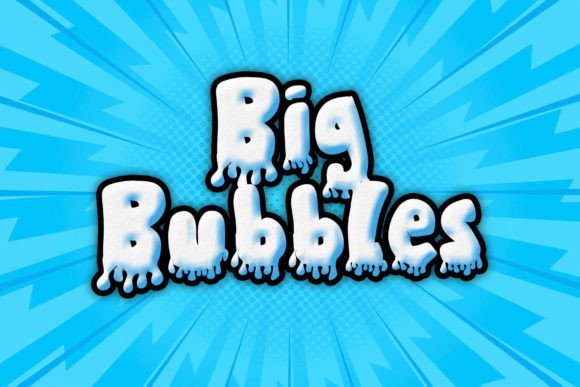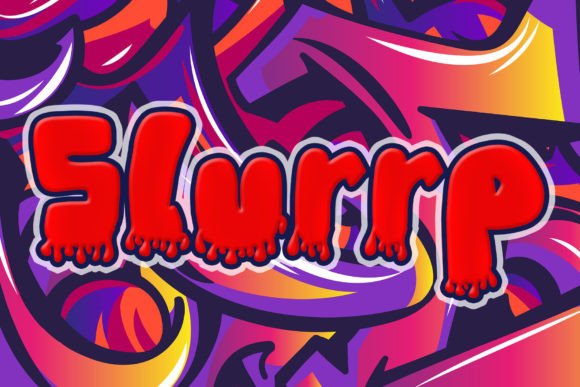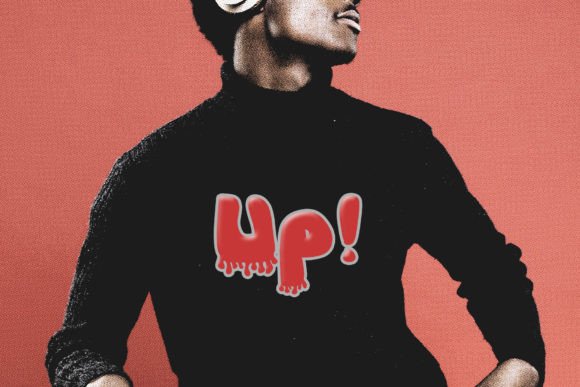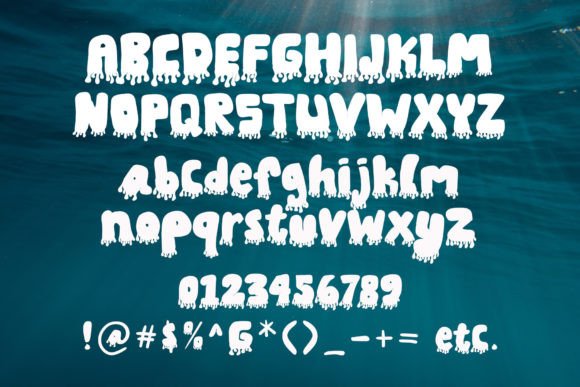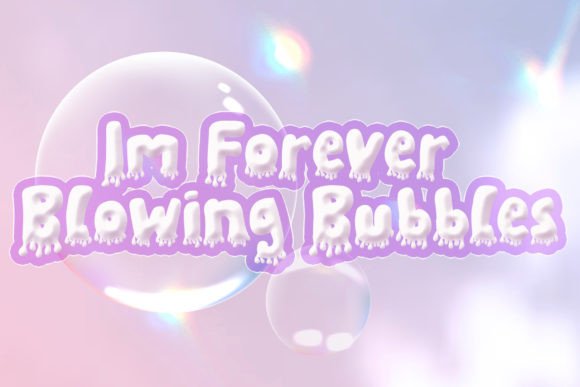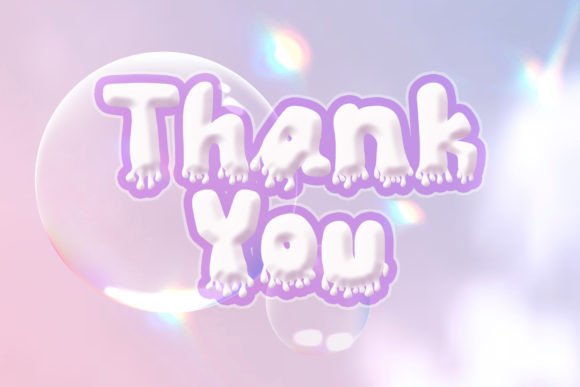
Introducing Curly Puth Font: The Playful and Cute Companion for Designers and Crafters
Are you on the hunt for a font that exudes playfulness and cuteness? Look no further than Curly Puth Font! This delightful font is perfect for designers, crafters, and anyone looking to add a touch of whimsy to their projects. In this article, we’ll dive into the world of Curly Puth Font, exploring its features, uses, and benefits. Whether you’re a seasoned designer or a crafting enthusiast, you’ll discover why Curly Puth Font is about to become your new favorite go-to font.
The Playful and Cute Personality of Curly Puth Font
Curly Puth Font is a handcrafted, digital font that boasts a playful and cute personality. Its unique, curly design makes it perfect for projects that require a touch of fun and friendliness. The font’s rounded edges and smooth curves create a sense of approachability, making it ideal for designs that need to appeal to a younger audience. Whether you’re creating materials for children or simply want to add some whimsy to your designs, Curly Puth Font is the perfect choice.
Suitable for Children and Family-Friendly Projects
Curly Puth Font is specifically designed with children in mind. Its playful and cute design makes it perfect for projects that require a fun and youthful touch. From children’s books and educational materials to craft projects and family-friendly designs, Curly Puth Font is the ideal choice. The font’s friendly and approachable personality ensures that your designs will resonate with kids and adults alike.
Versatile Uses for Designers and Crafters
Curly Puth Font is an incredibly versatile font that can be used in a wide range of projects. Here are just a few ideas to get you started:
- Crafts: Use Curly Puth Font to add a personal touch to your craft projects, such as handmade cards, scrapbooking, and DIY decorations.
- Digital Design: Add a playful touch to your digital designs, including social media graphics, blog posts, and website headers.
- Presentations: Make your presentations more engaging and fun with Curly Puth Font, perfect for educational or business presentations that need a touch of whimsy.
- Greeting Cards: Create personalized and playful greeting cards for birthdays, holidays, and special occasions.
Why Curly Puth Font Will Become Your Go-To Font
So, what makes Curly Puth Font so special? Here are just a few reasons why it’s about to become your new favorite font:
- Unique Design: Curly Puth Font boasts a unique and playful design that sets it apart from other fonts.
- Easy to Read: The font’s clear and smooth curves make it easy to read, even at smaller sizes.
- Versatile: Curly Puth Font can be used in a wide range of projects, from digital designs to craft projects.
- Fun and Friendly: The font’s playful and cute personality makes it perfect for projects that require a touch of fun and friendliness.
In conclusion, Curly Puth Font is a playful and cute font that’s perfect for designers, crafters, and anyone looking to add a touch of whimsy to their projects. Its unique design, versatility, and friendly personality make it an ideal choice for projects that require a fun and youthful touch. Whether you’re working on crafts, digital designs, presentations, or greeting cards, Curly Puth Font is sure to become your new go-to font. So, why wait? Give Curly Puth Font a try today and discover the magic of playful typography!